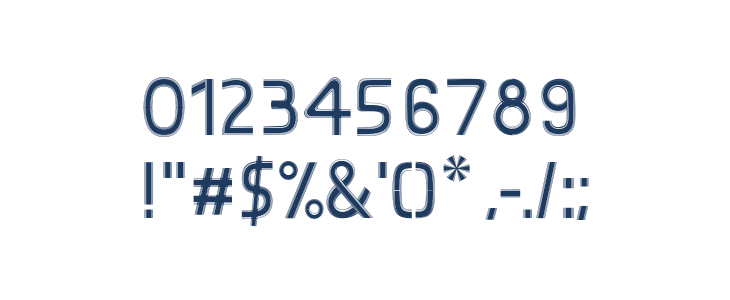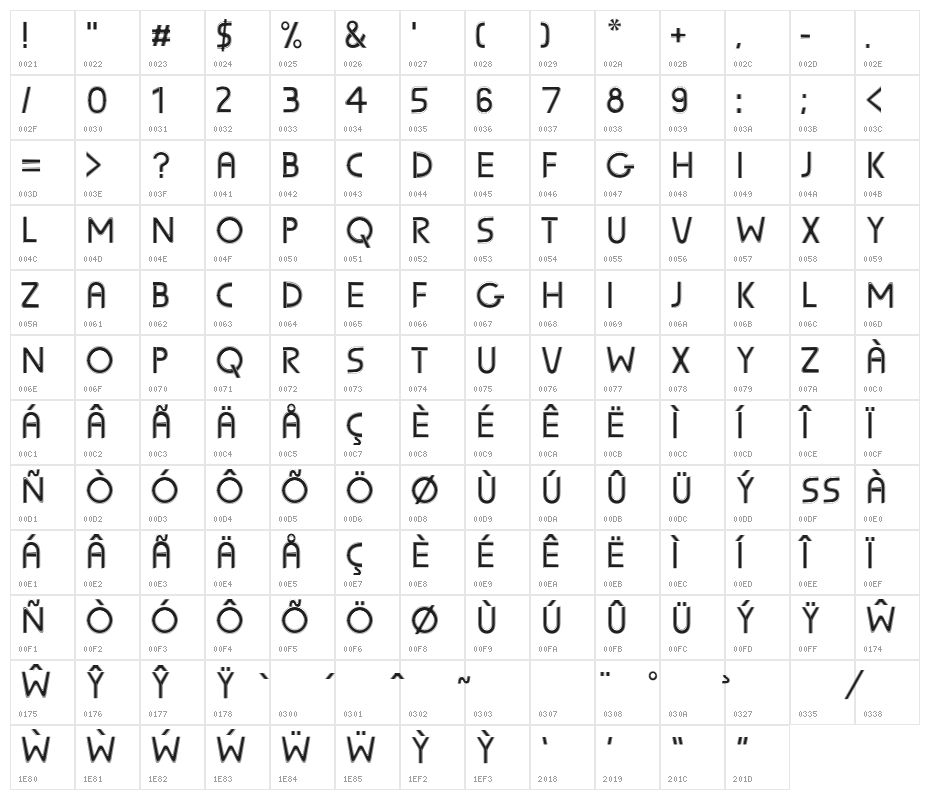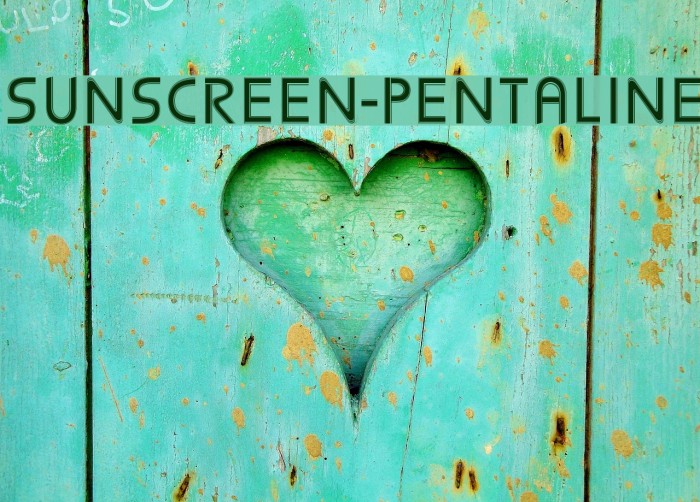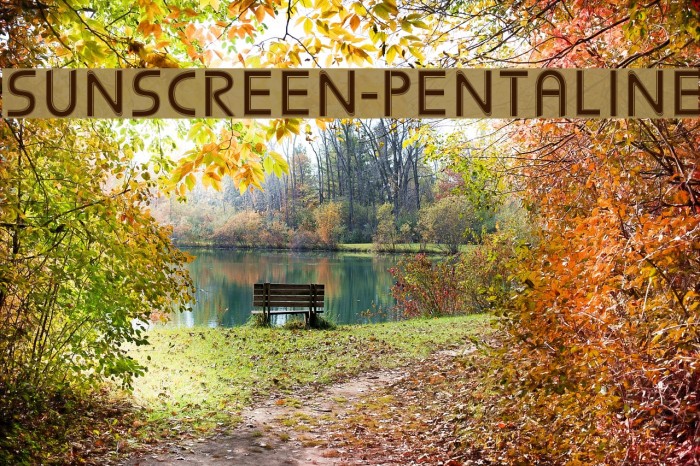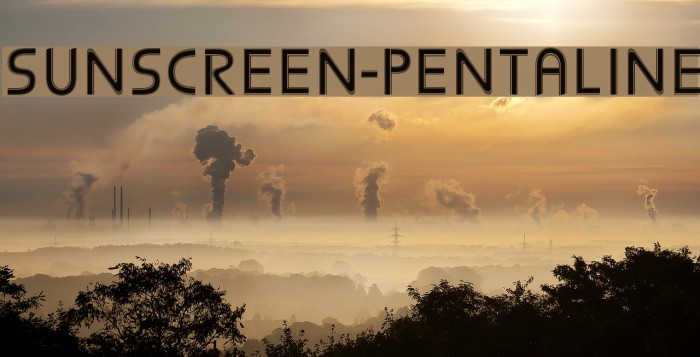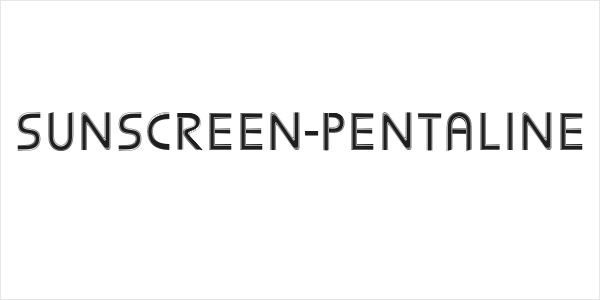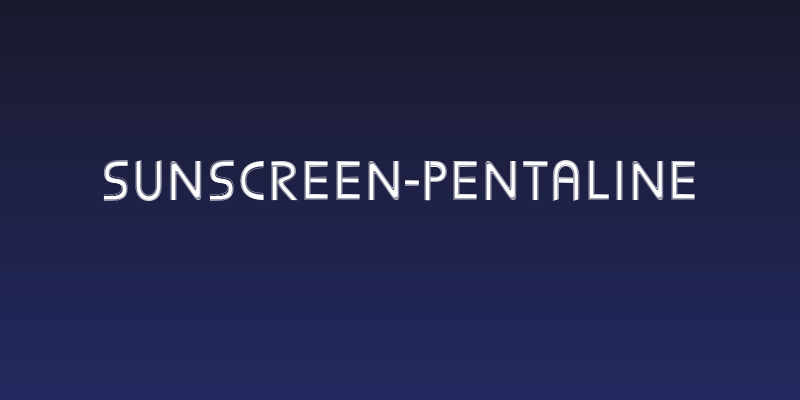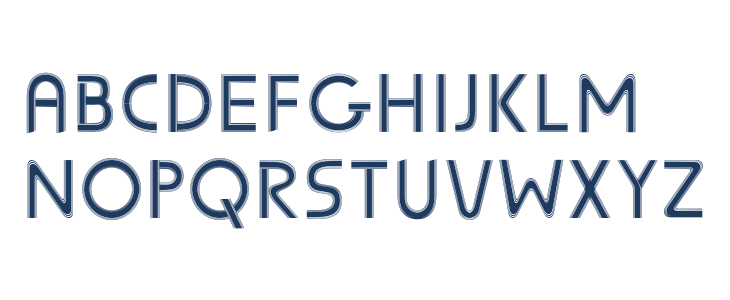
Sunscreen-Pentaline Font
Sunscreen-Pentaline Description
This font features a modern, geometric design with a distinct three-line pattern that gives it a layered, dimensional appearance. The characters are bold and have a futuristic feel, with clean lines and sharp angles. The uppercase and lowercase letters maintain a consistent style, while the numerals and special characters complement the overall aesthetic. The font's unique structure makes it stand out, ideal for creative and eye-catching designs.